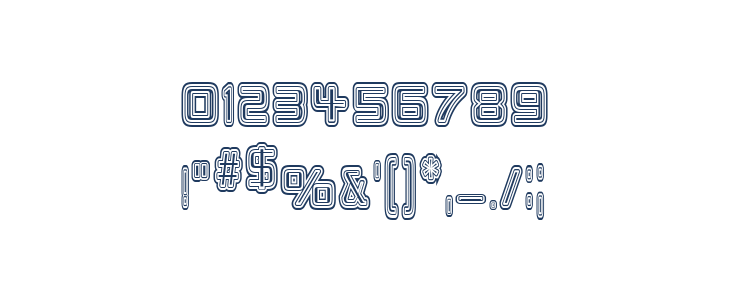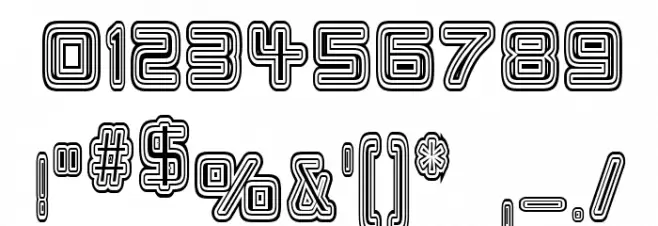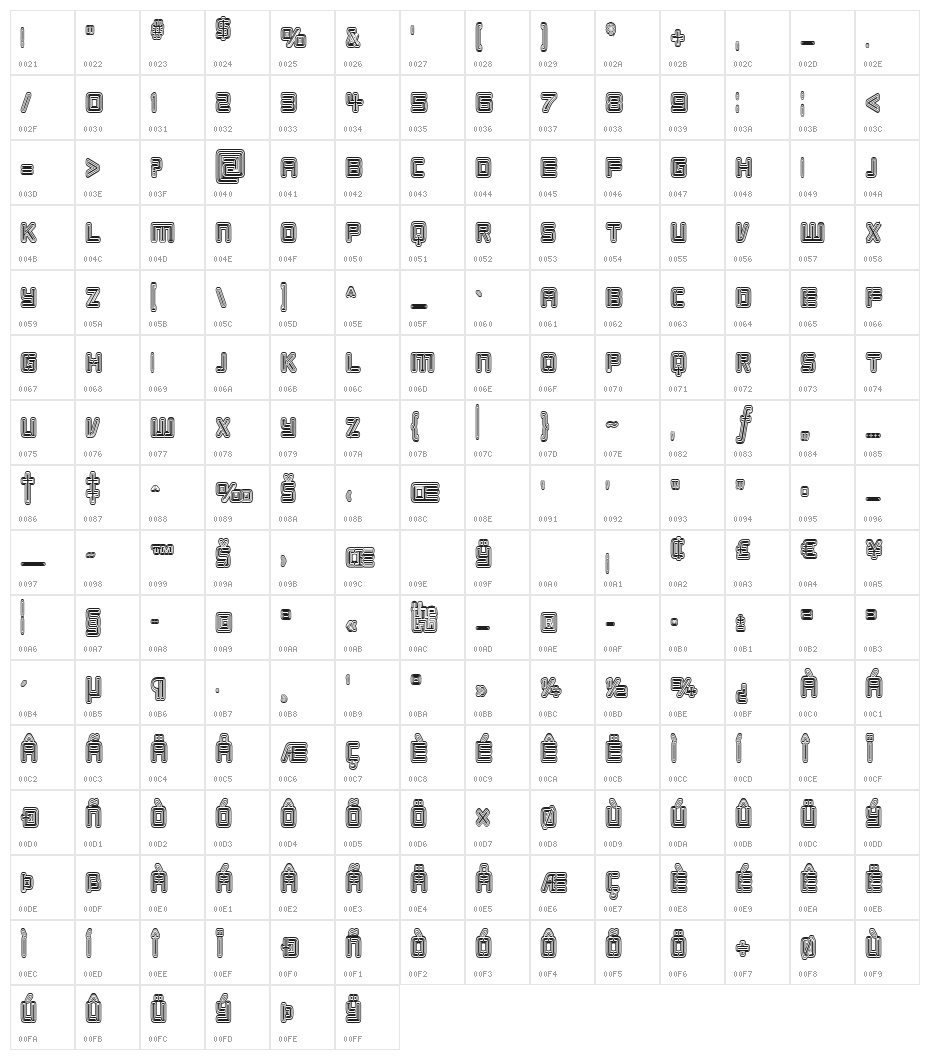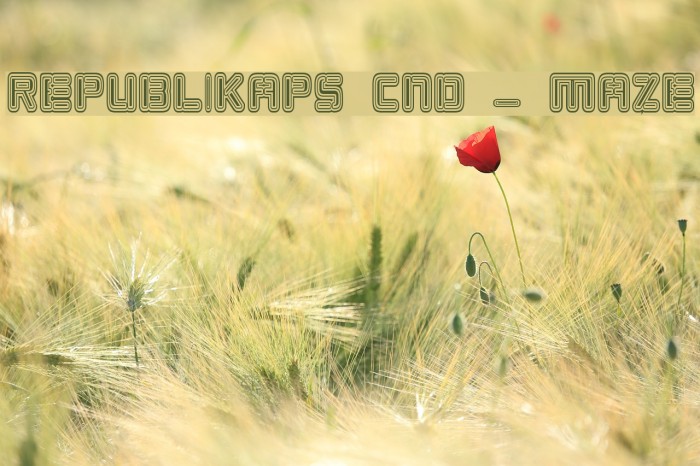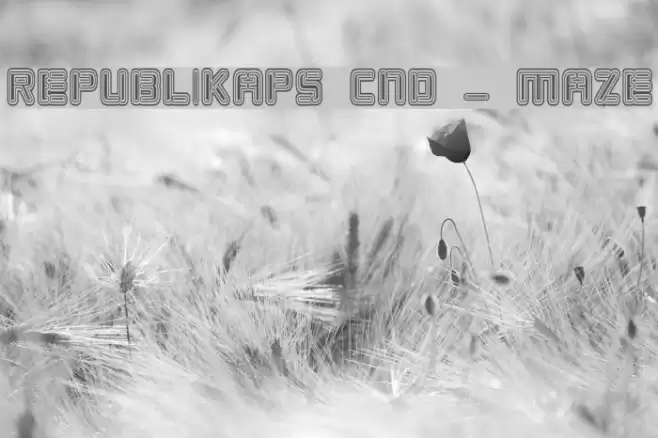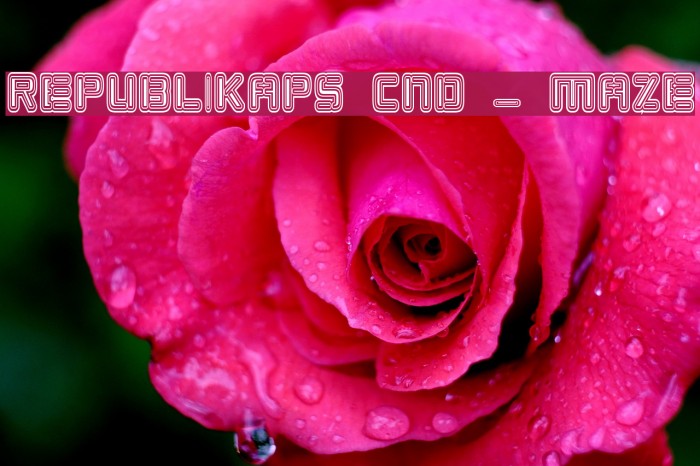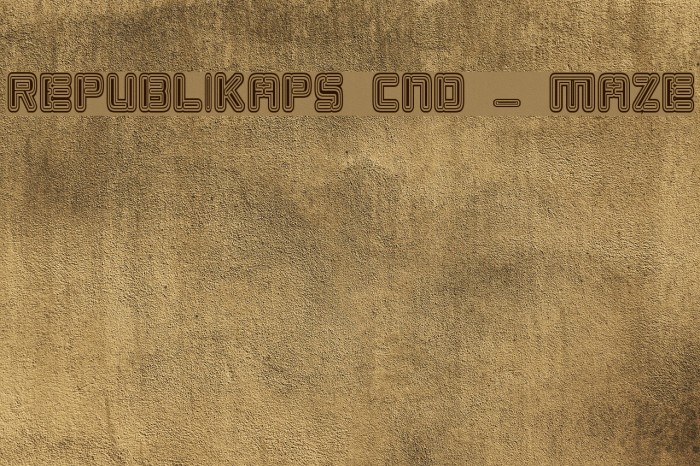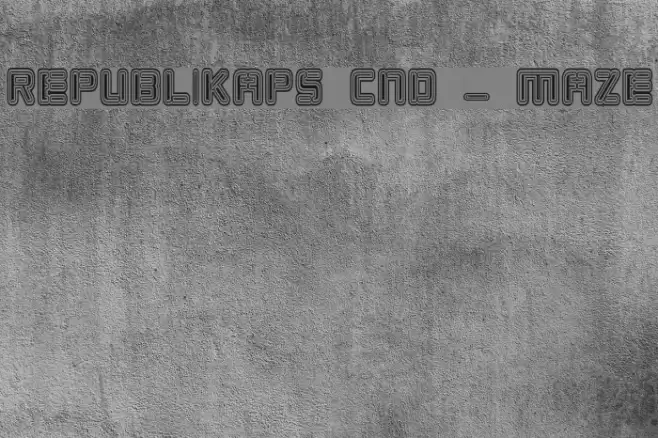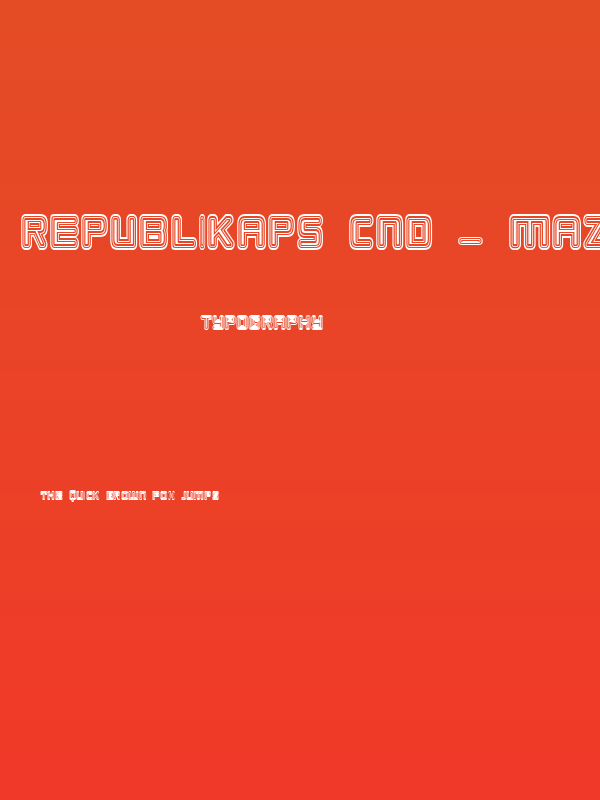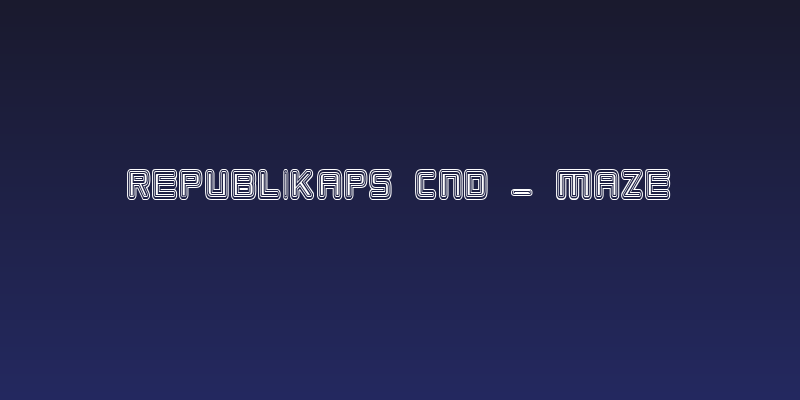
Republikaps Cnd - Maze Font
Republikaps Cnd - Maze Description
This font features a bold, geometric design with a maze-like pattern. Each character is outlined with multiple layers, creating a three-dimensional effect that stands out. The uppercase and lowercase letters maintain a consistent style, with rounded edges and uniform line thickness. Numbers and special characters are designed to match the overall aesthetic, making them easily recognizable while maintaining the font's unique style. The font's intricate design makes it ideal for eye-catching displays and creative projects.
| Proposed Projects | Ideal for posters, logos, branding, and any project requiring a striking, modern look. |